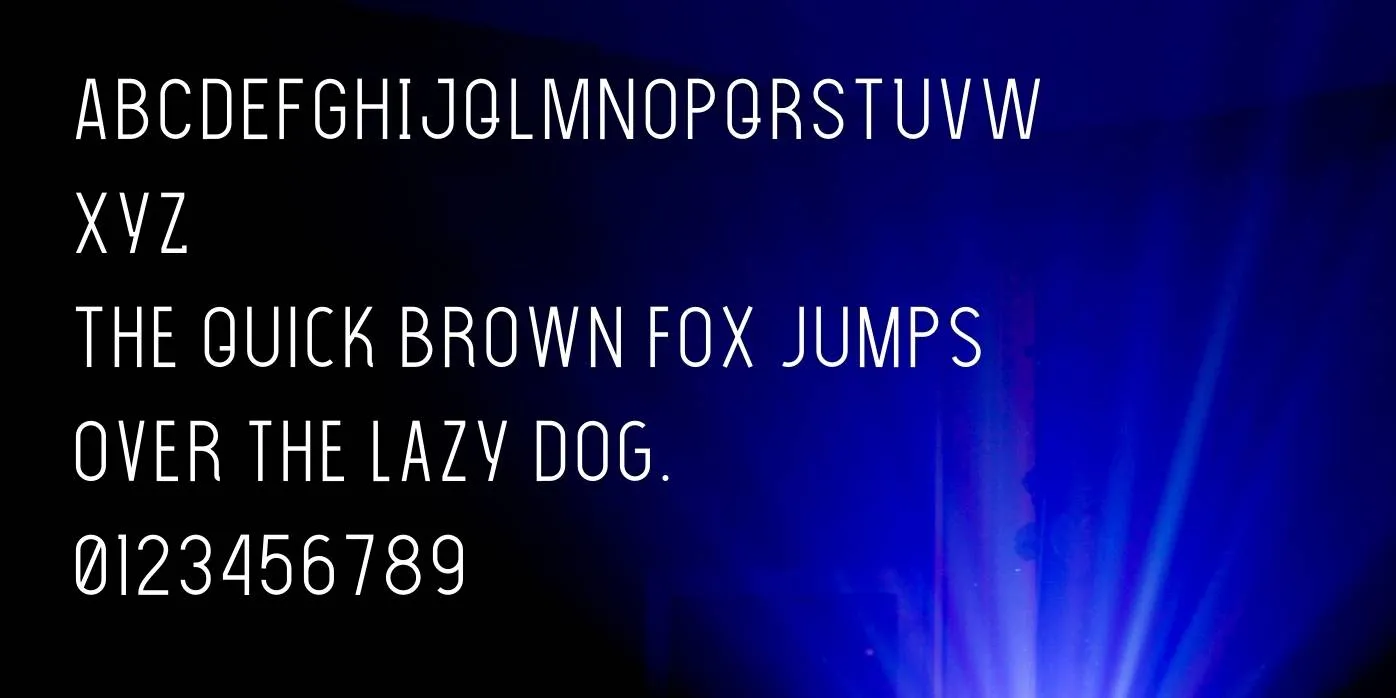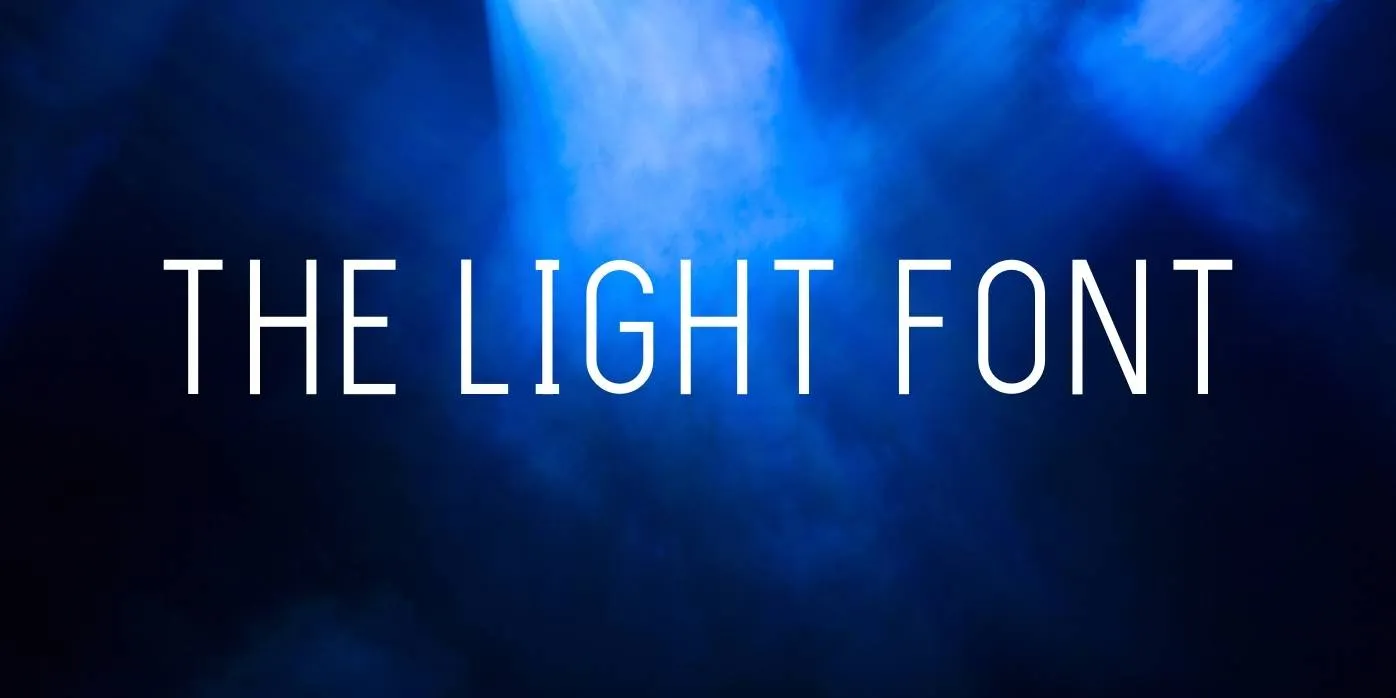
The Light Font
The Light Font is slim, high standard, the tallest typeface that belongs to a Sans serif typeface family. This extraordinary typeface is good enough for your heading or titling purpose. The designer of this typeface is Sven Pels. The typeface family has 2 set of file that includes Opentype features and Truetype features separately.
You can construct many other types of forms with the help of the OTF feature file. It also has the ability to support many languages. A¬†Univers Font is also a sans serif typeface that can help you to make many amazing designs by pairing these two typefaces. The tail of a “Q” character is tilted in the inside direction.
The typeface has Uppercase Letters, Numbers, punctuation, glyphs, and symbols.